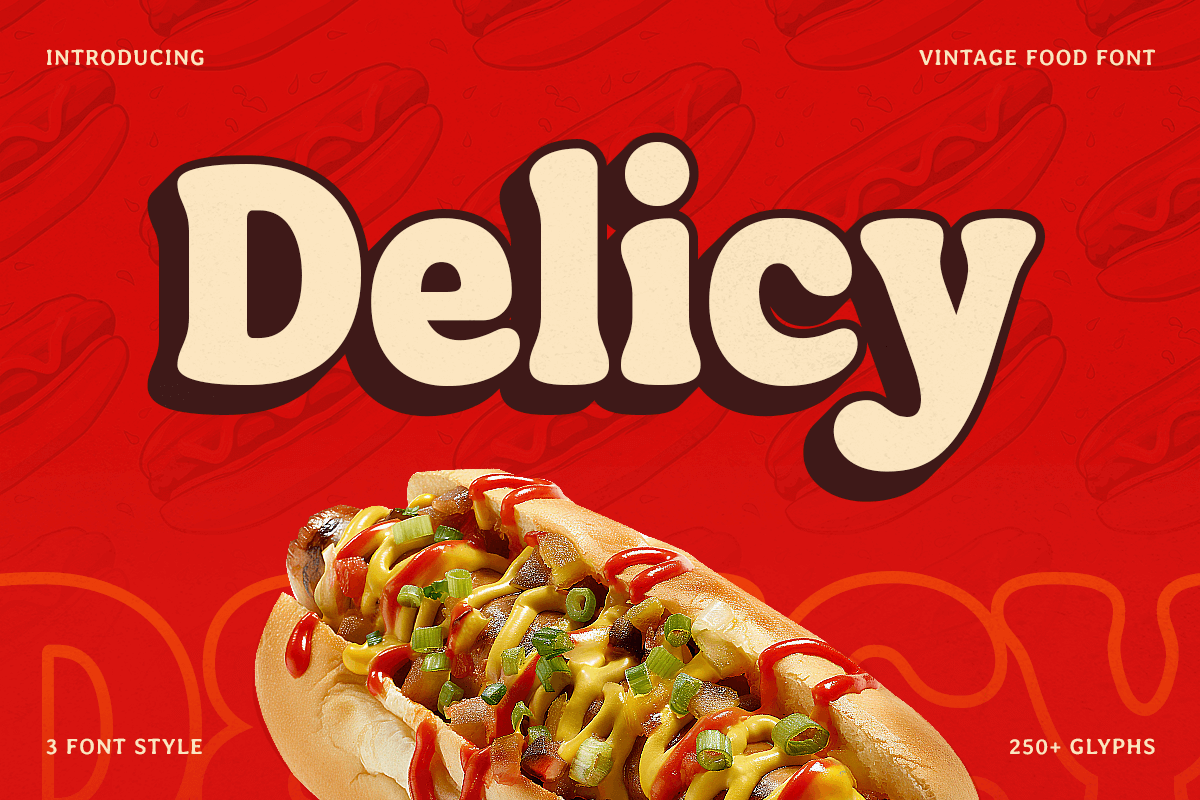
Delicy
-Vintage Food Font
delicy regular
Delicy
delicy outline
Delicy
delicy extrude
Delicy
Delicy - Vintage Food Font
Delicy is a vintage food font inspired by classic diner signage, retro food packaging, and nostalgic advertising from the golden era. Its smooth curves and stylish letterforms evoke a warm, familiar feeling, making it the perfect choice for food-related branding, packaging, and restaurant menus. Whether you're designing a bakery logo, a coffee shop sign, or a retro-inspired menu, Delicy adds a charming touch that captivates the audience.
Perfect for Food Branding and Packaging
With its versatile design, Delicy works beautifully across different culinary projects, from artisanal food labels to gourmet restaurant branding. The font’s stylish yet readable characters make it an excellent choice for café menus, vintage-style posters, snack packaging, and food-related social media graphics. Whether used for bold headlines or subtle accents, Delicy brings a unique personality that enhances the overall design.
Retro Elegance with a Playful Twist
Delicy combines the elegance of classic typography with a touch of playfulness, making it ideal for designers looking to create eye-catching and mouthwatering visuals. The font offers a balance of sophistication and fun, making it suitable for both high-end restaurants and casual eateries. With its well-crafted alternates and ligatures, Delicy ensures every design stands out, leaving a lasting impression.